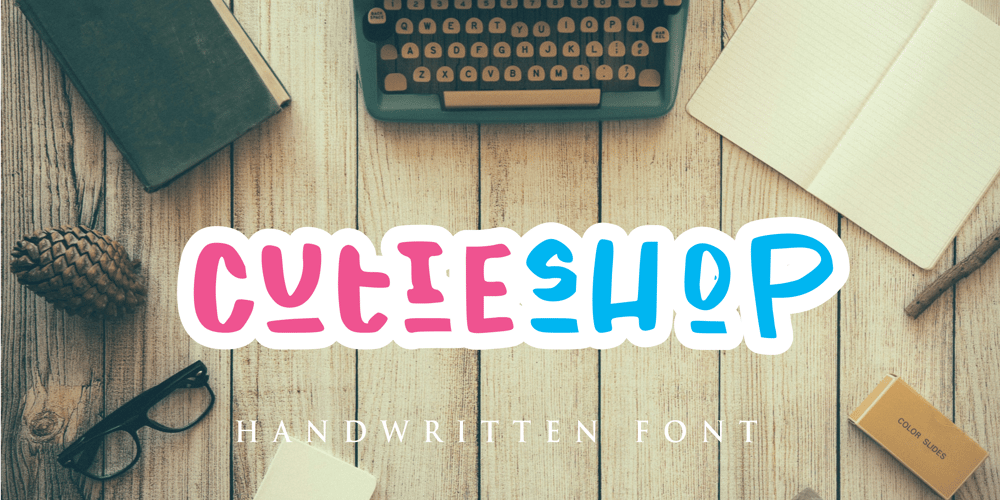
Cutie Shop Font Family was designed by Mariyana and published by Goodigital13. Cutie Shop contains 1 styles and family package options. This font can be used Such as logo branding, editorial design, stationery design, blog design, modern advertising design, card invitation, art quote, home decor, book/cover title, special events and any more. font suitable for logo, branding, greeting card, poster and any design that you create.